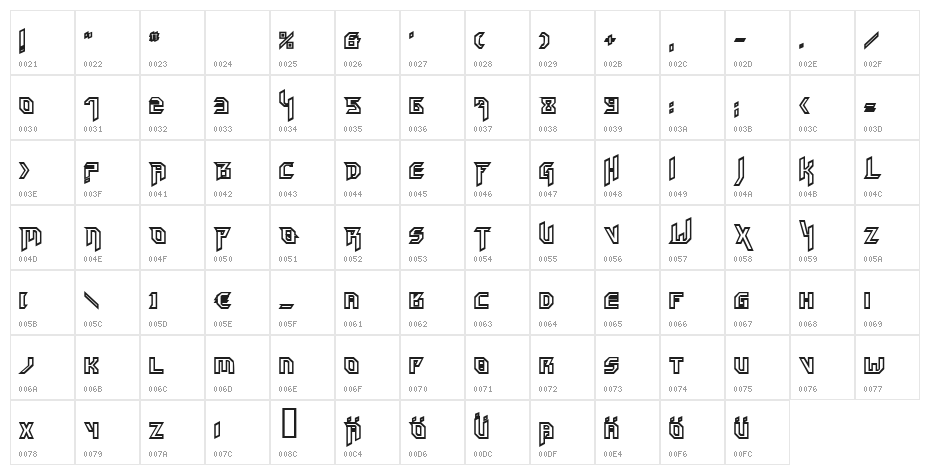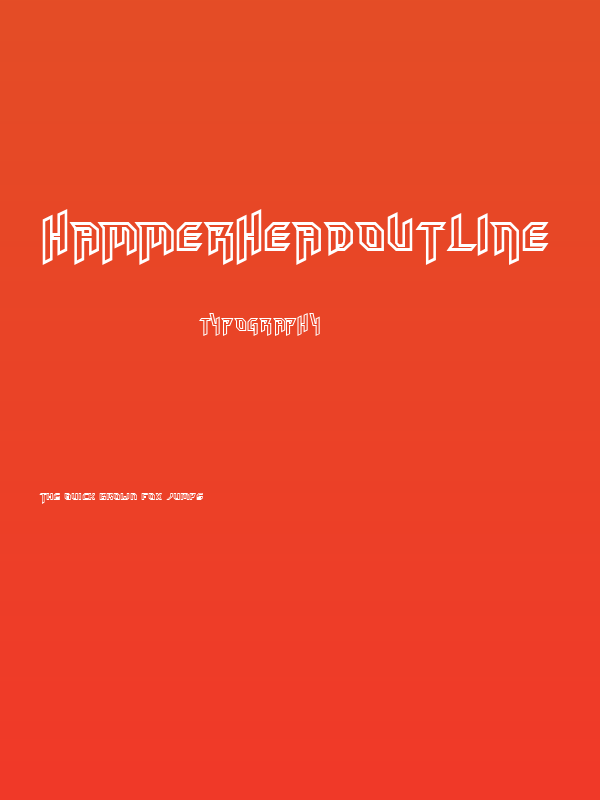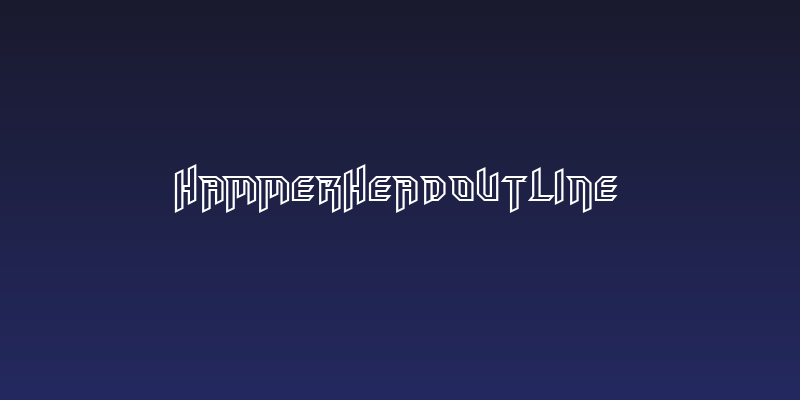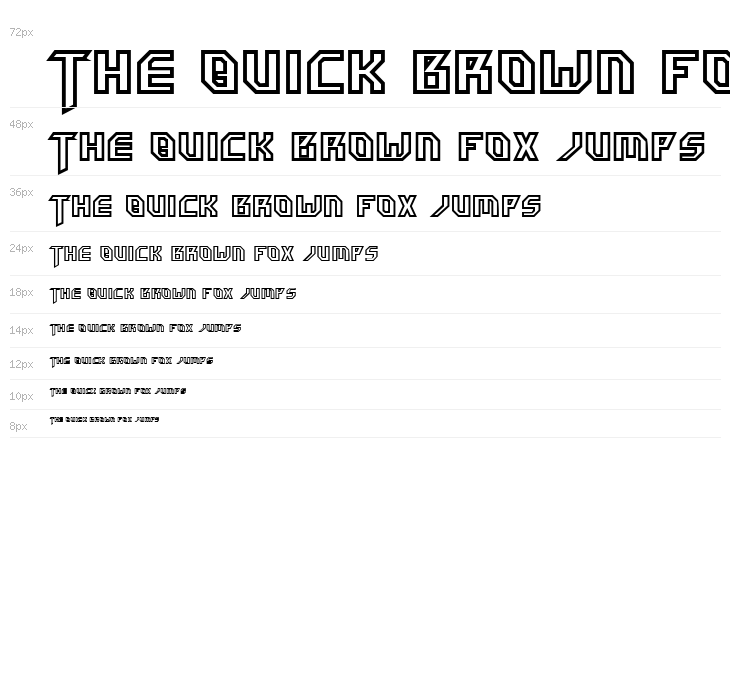
HammerheadOutline Font
HammerheadOutline Description
This font features a bold, geometric design with sharp angles and a distinct outline style. The uppercase and lowercase letters maintain a consistent angular theme, creating a futuristic and edgy appearance. The numbers and special characters follow the same design principles, ensuring uniformity across all glyphs. The font's outline nature gives it a hollow look, making it ideal for designs that require a striking and modern aesthetic. Its unique style is suitable for projects that aim to capture attention and convey a sense of innovation.
| Proposed Projects | Ideal for sci-fi themed posters, video game titles, branding for tech companies, and modern art installations. |